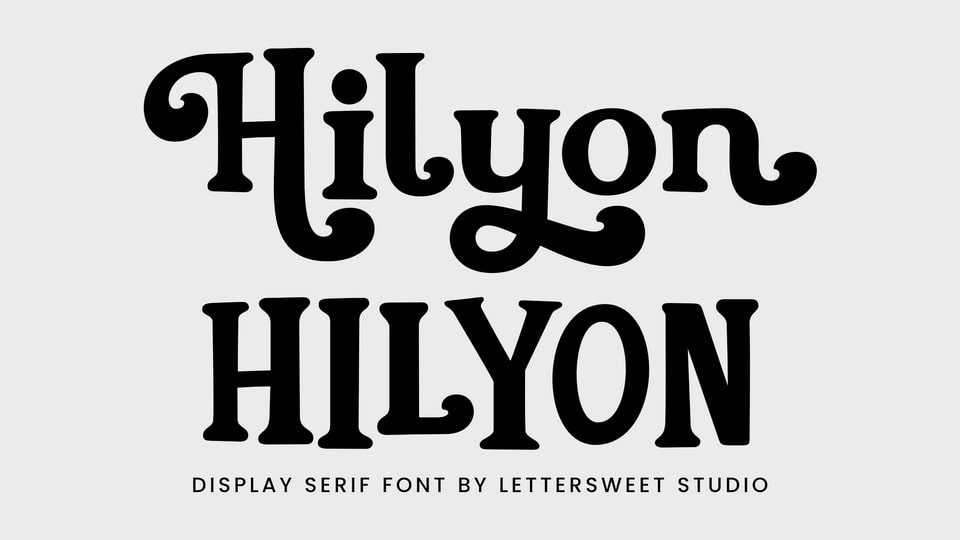
Download Hilyon font, a bold and stylish display serif typeface with a unique blend of vintage charm and quirky elegance with its distinctive curves, whimsical terminals.